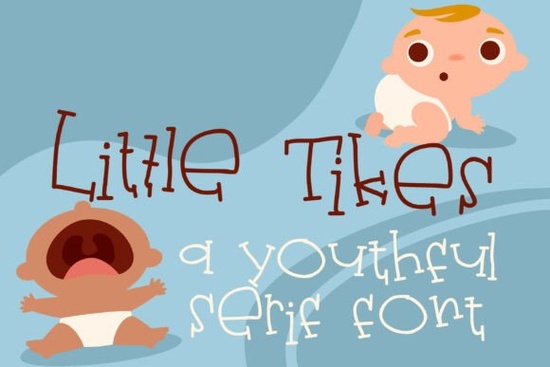
Looking for a font that feels like a hand-drawn sketch from a child’s notebook whimsical, warm, and full of personality? Little Tikes Family Font delivers exactly that. It’s perfect if you’re designing baby clothes, nursery art, storybooks, or playful packaging for toys and kids’ products. The letterforms have a handmade charm: uneven lines, quirky baseline shifts, and simple blocky serifs that give it a nostalgic, slightly imperfect feel like something drawn during a quiet moment at the playground.
What makes Little Tikes Family Font stand out?
Unlike clean, uniform typefaces, this font embraces imperfection. Each letter is unique, with thin monoline strokes and slight variations in height and alignment. These subtle differences make it feel alive and personal ideal for brands that want to feel authentic and approachable.
- Hand-drawn look: Inspired by children’s early sketches, it works well for organic, low-tech branding.
- Flexible for design: Great for headlines, logos, product labels, and social media graphics.
- Conversational tone: Its friendly energy fits naturally with baby apparel, parenting blogs, and kids’ content.
You’ll find it especially useful when you want your project to feel personal and not overly polished. Whether you're printing on onesies, creating printable wall art, or designing a toy box label, this font adds warmth without overwhelming the message.
Where can I use Little Tikes Family Font?
It’s built for creative projects that celebrate childhood joy. Here are some common uses:
- Nursery decor: Turn quotes or names into custom prints with a soft, artistic touch.
- Baby clothing labels: Add a playful brand identity to onesies or bibs.
- Children’s books: Use it for character names or chapter titles to keep things light and fun.
- Toys and packaging: Ideal for small business owners selling handmade or boutique toys.
- Social media posts: Grab attention with bold, energetic headlines on Instagram or Pinterest.
The font doesn’t try to be serious it leans into playfulness, which is why it pairs so well with other whimsical designs. If you’ve been searching for a way to make your brand feel more personal and less corporate, this could be the right fit.
How does it compare to similar fonts?
If you’ve explored fonts like Melody Font, Cruise Font, Bestie Font, or Belahgio Font, you’ll notice they all share a casual, expressive style but Little Tikes Family Font stands out with its specific childlike energy and irregular structure. While those fonts work great for invitations or journaling, this one leans more into a playful, almost naive aesthetic that feels tailor-made for youth-focused products.
For designers who love mixing textures and styles, pairing Little Tikes Family Font with a clean sans-serif or a soft pastel background can create a balanced, inviting look. Try using it for headings only, letting simpler fonts handle body text this keeps the focus where it belongs.